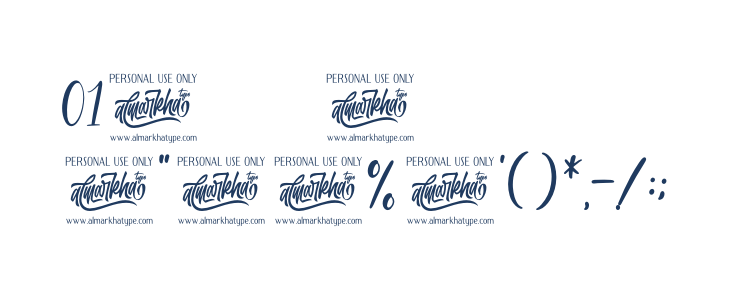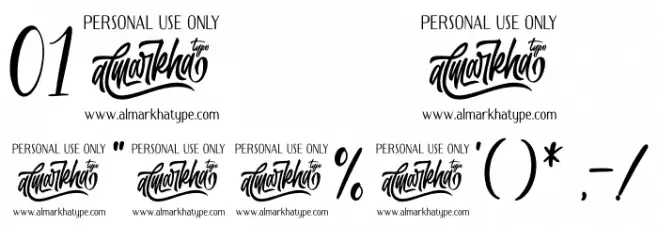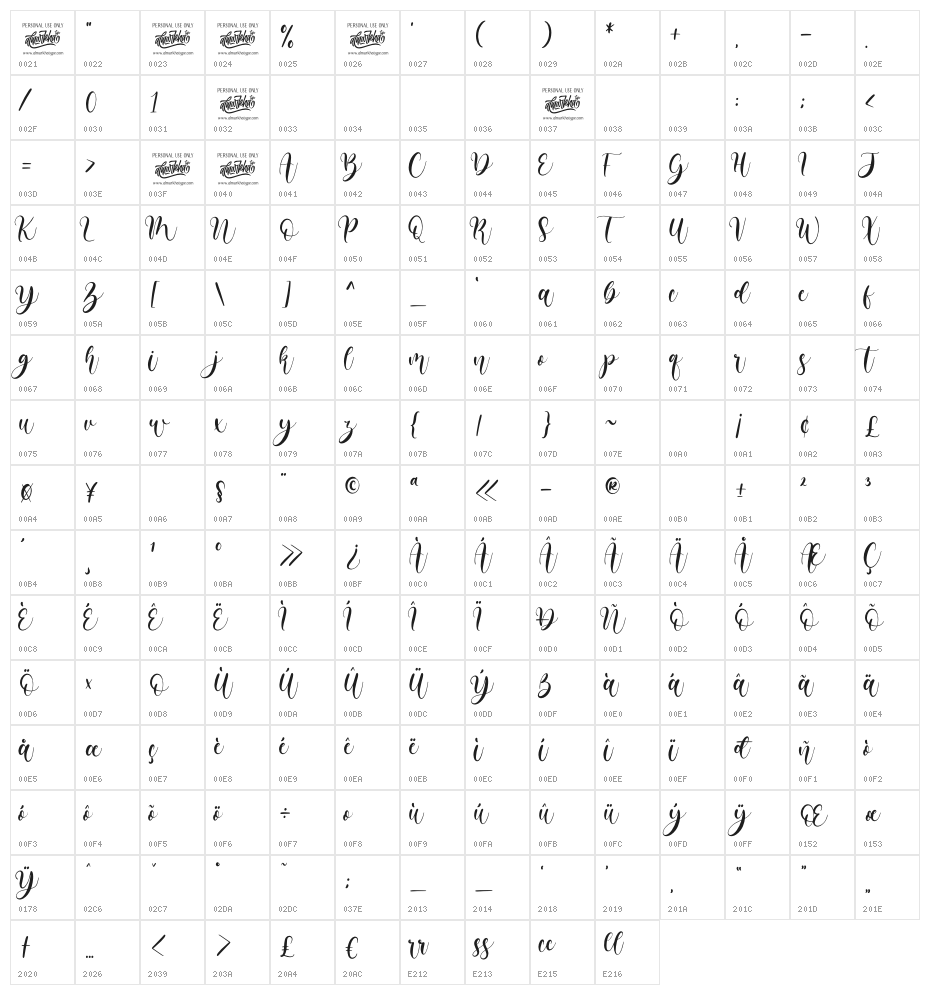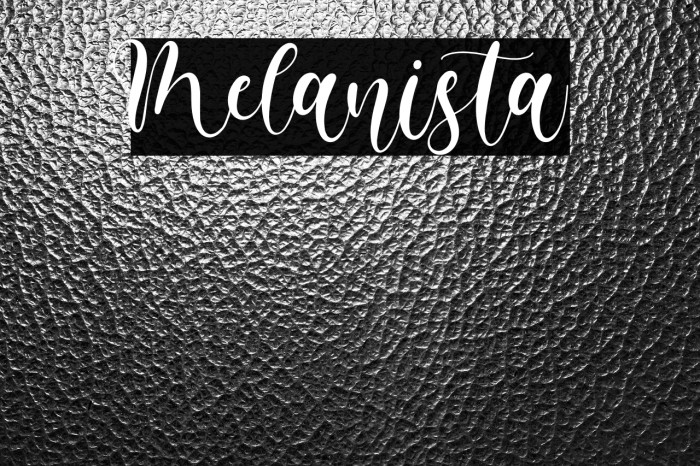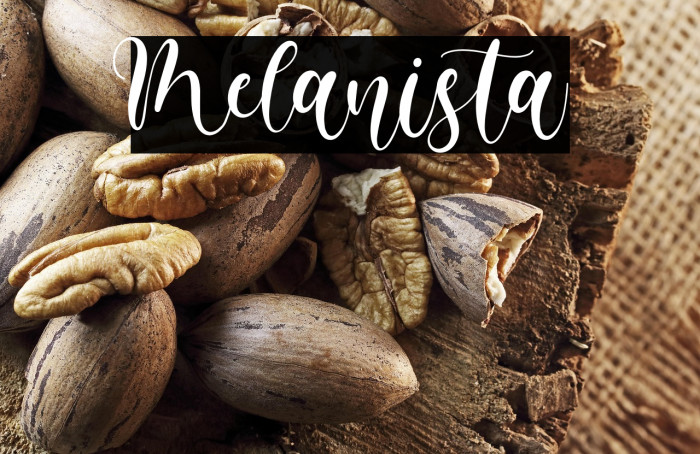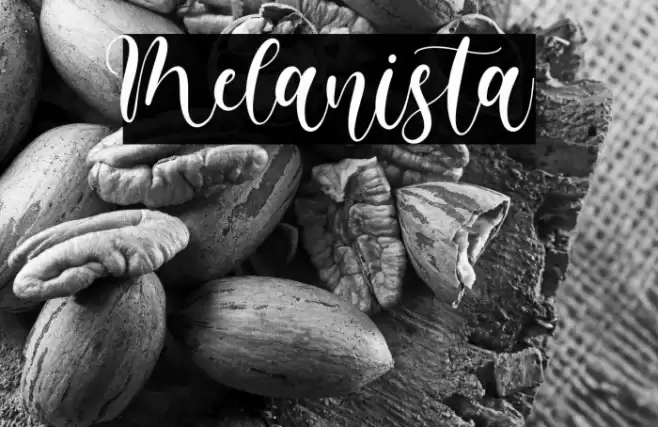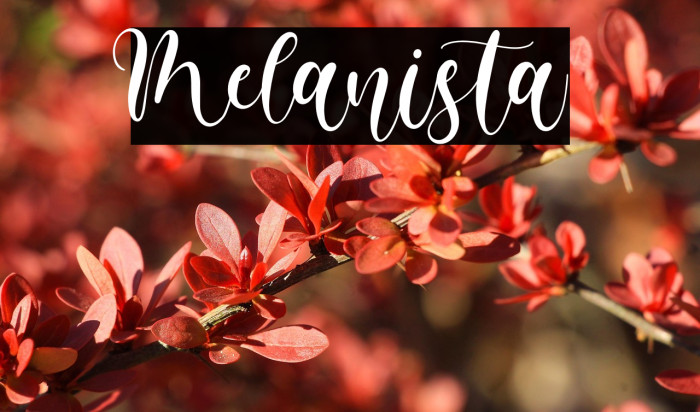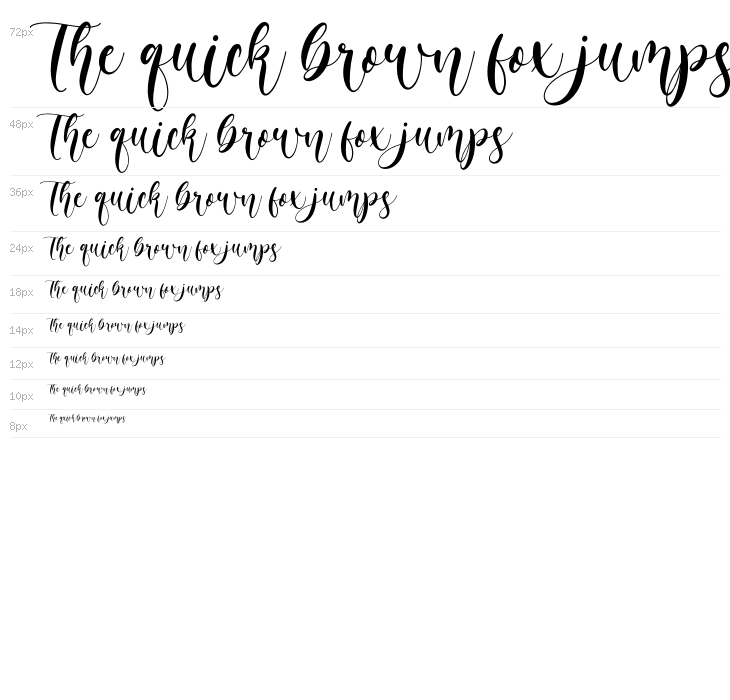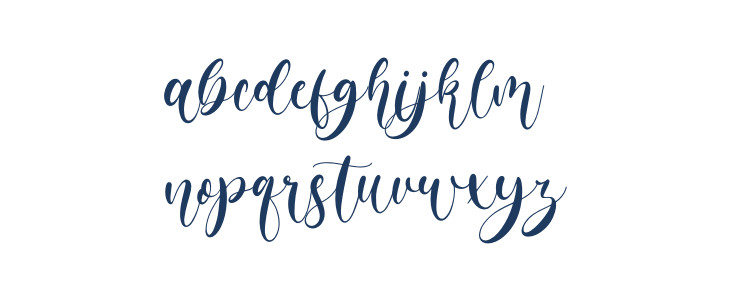
Melanista Font
Melanista Description
This font features an elegant and flowing script style, characterized by its smooth, cursive strokes and graceful curves. The uppercase letters are bold and decorative, with intricate loops and swashes that add a touch of sophistication. The lowercase letters maintain a consistent flow, enhancing readability while preserving the artistic flair. The numerals and special characters are designed with the same attention to detail, ensuring a cohesive look across all text elements. This font exudes a sense of elegance and creativity, making it ideal for projects that require a personal and artistic touch.